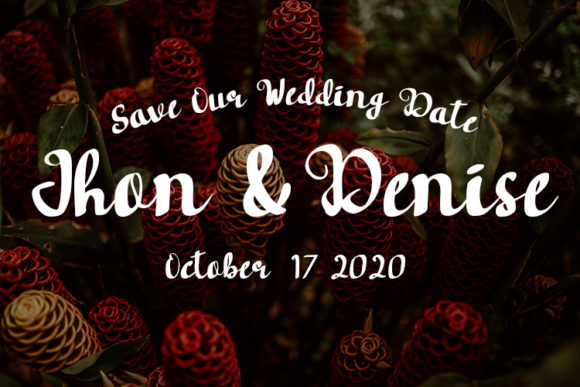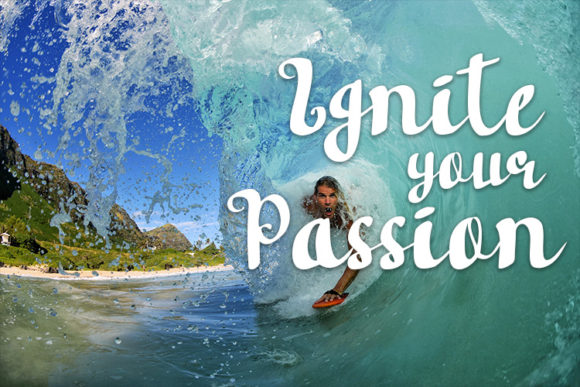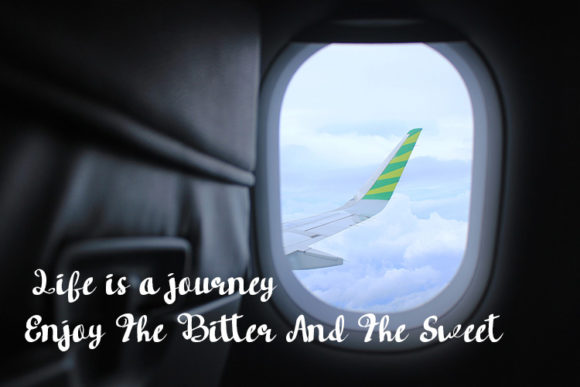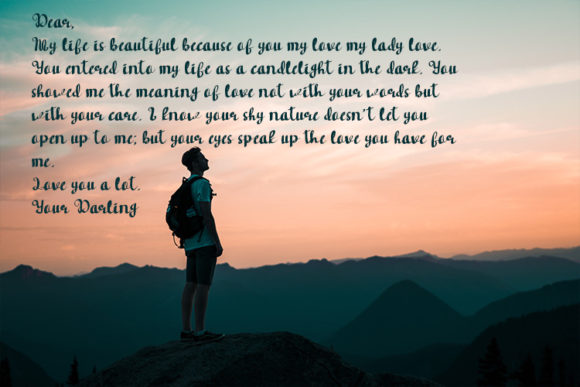
About Hudson Font
Introducing “The Hudson,” a beautiful handwritten font designed to bring a striking yet elegant style to your projects. This font is more than just a typeface; it’s a design asset crafted with beauty and sophistication, making it suitable for a wide range of designs that demand a visually appealing and stylish aesthetic.
“The Hudson” stands out with its beautiful handwritten style that strikes a balance between boldness and elegance. Whether you’re working on branding, invitations, logos, quotes, or any project that requires a touch of visual appeal and style, this font delivers with its distinctive and refined character.
Its striking yet elegant style ensures that your text makes a statement while maintaining an overall sense of sophistication. Logos designed with this font convey a sense of beauty and uniqueness, creating a memorable and visually stunning brand identity. Branding materials, invitations, quotes, and other designs crafted with “The Hudson” carry a stylish and refined vibe, making them visually appealing and versatile.
The versatility of “The Hudson” makes it a great choice for a variety of creative applications, providing a beautiful handwritten look that adds a touch of elegance to any design context.
In summary, “The Hudson” is more than just a font; it’s a design companion that brings a beautiful handwritten style with a striking yet elegant feel to your projects. Embrace its beauty for branding, invitations, logos, and more, and let “The Hudson” enhance your designs with a touch of visual appeal and sophistication.